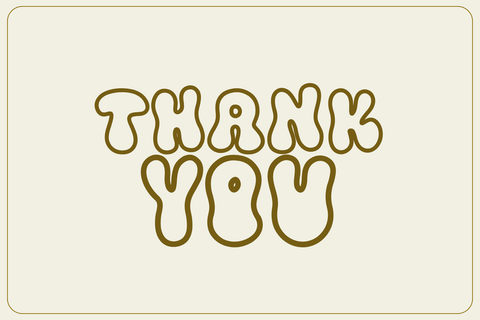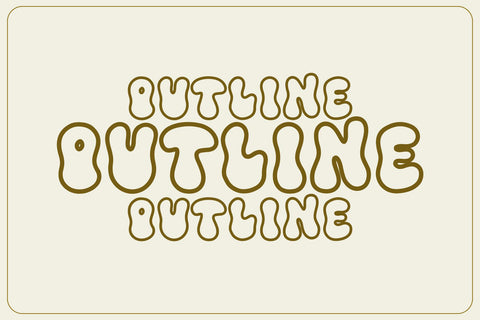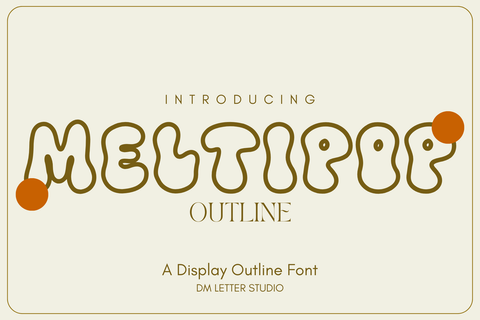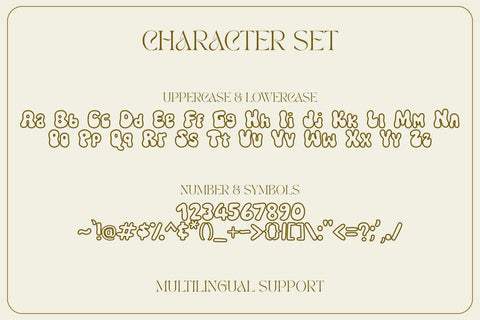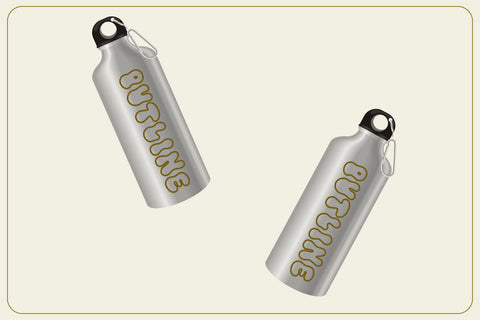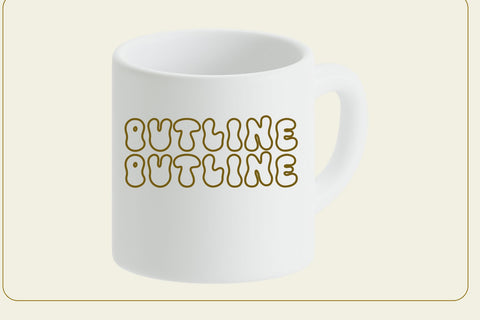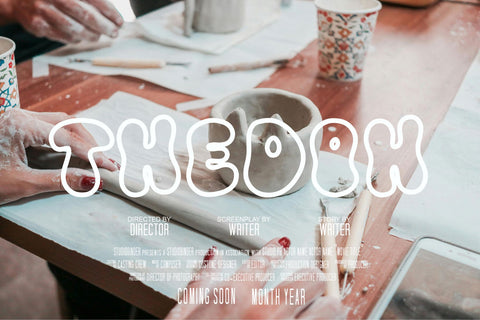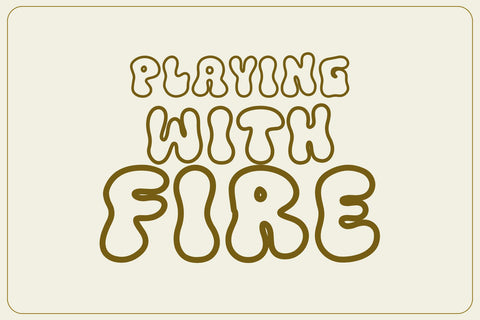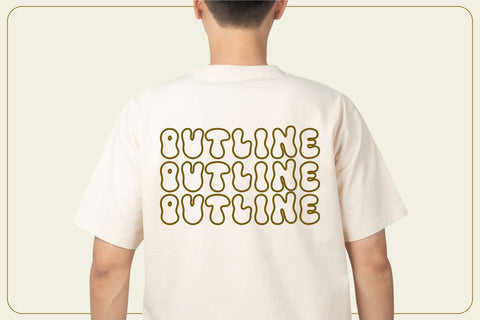
Meltipop Outline Font
Meet Meltipop Outline Font
Meltipop Outline Font brings bubbly pop-art energy with clean readability. Letters feel round and friendly. Hollow strokes keep titles light while staying bold on shirts, stickers, posters, and thumbnails. Use it for kids’ merch, summer launches, party kits, candy brands, and upbeat social posts. Moreover, the outline style loves glow, gradients, and layered shadows, so quick mockups look polished fast.
Where Meltipop Outline Font shines
Set short phrases like Sweet Vibes, Pop Party, or a first name. Then add a soft inner fill, a drop shadow, or a sticker border for instant depth. Since spacing is tuned for headlines, layouts come together in minutes. As a result, you can build full bundles for printables, POD, and reels with less tweaking. Plus, the open counters stay clear on mobile, which helps listings pop in crowded feeds.
Fast setup, bright results
Design tips for outline display
Keep the copy short and let the stroke thickness lead. Pair big Meltipop Outline Font headlines with a simple geometric sans for captions. Meanwhile, use layered fills for a puffy sticker effect. Because the forms are rounded, subtle grain, glitter, and gel highlights work very well. However, avoid long sentences on tiny tags. Names, dates, and punchy words deliver the strongest impact.
Clean outlines for vinyl, laser, and high-res print
Why creators choose Meltipop Outline Font
You want a fun, modern type that still reads fast. This font delivers. It grabs attention in seconds, speeds production, and scales from mini stickers to large posters without losing charm. Therefore, one style can support launches across kids, party, summer, and lifestyle catalogs.